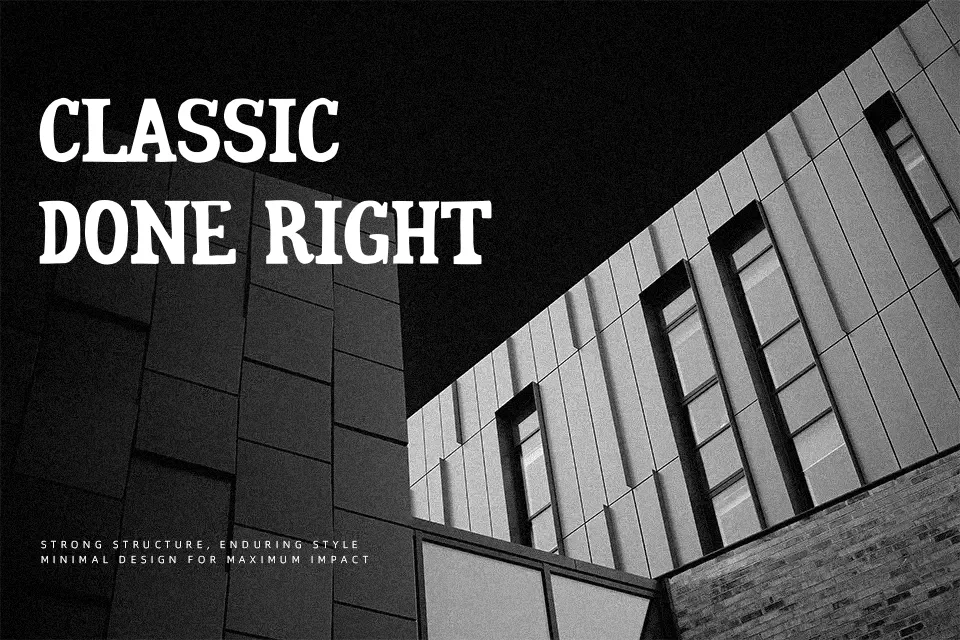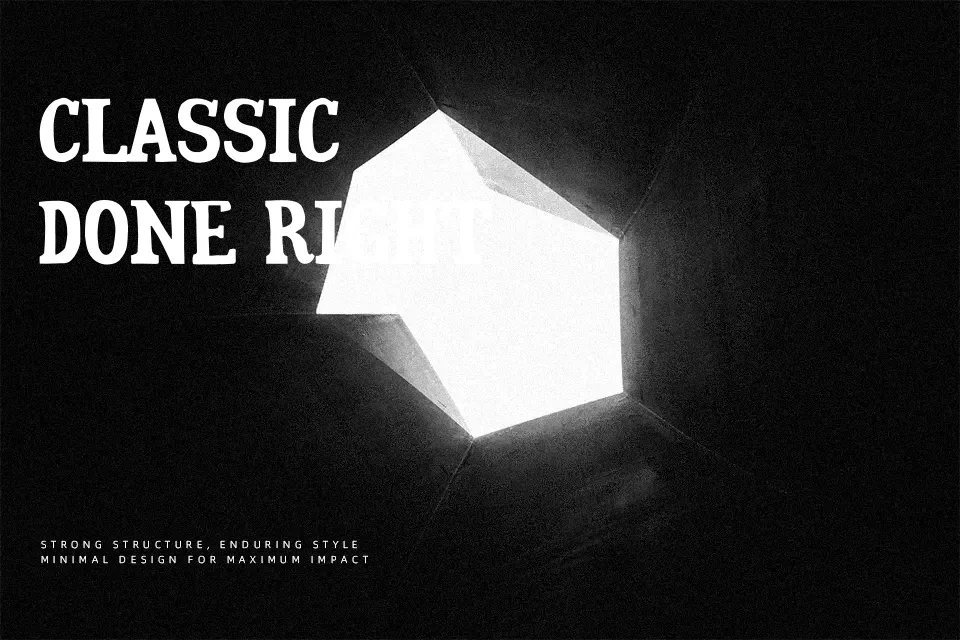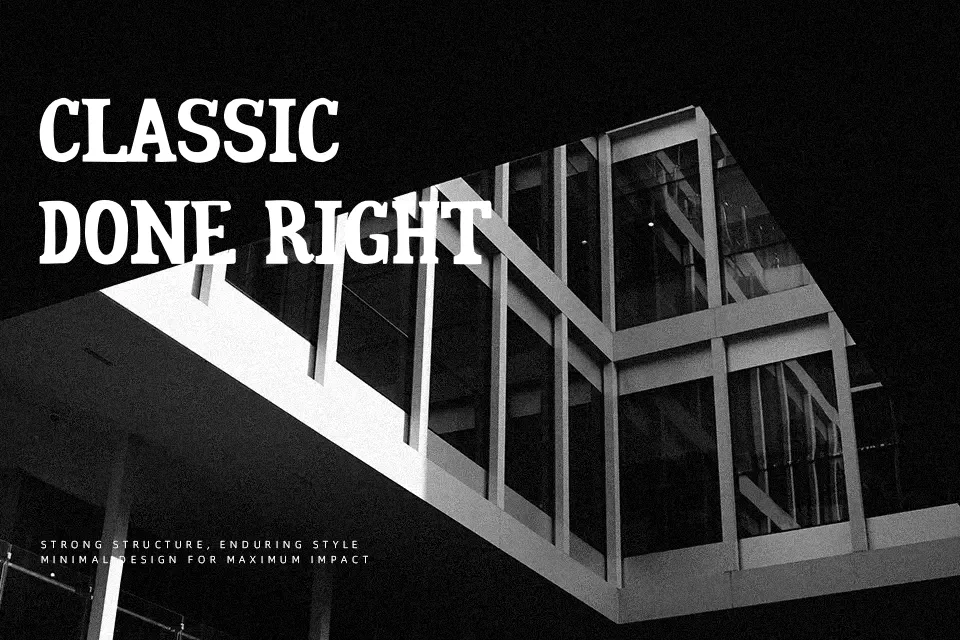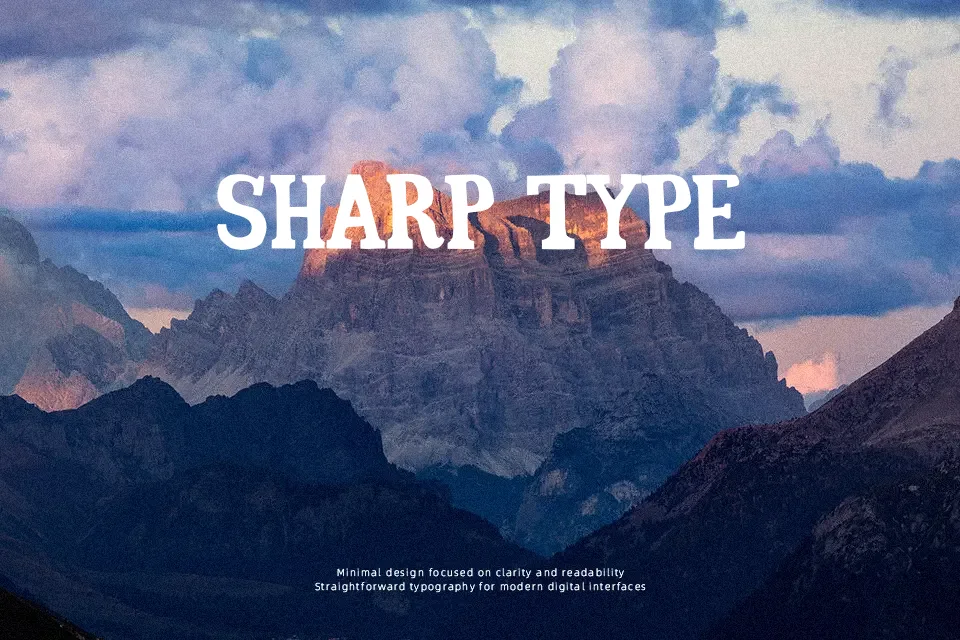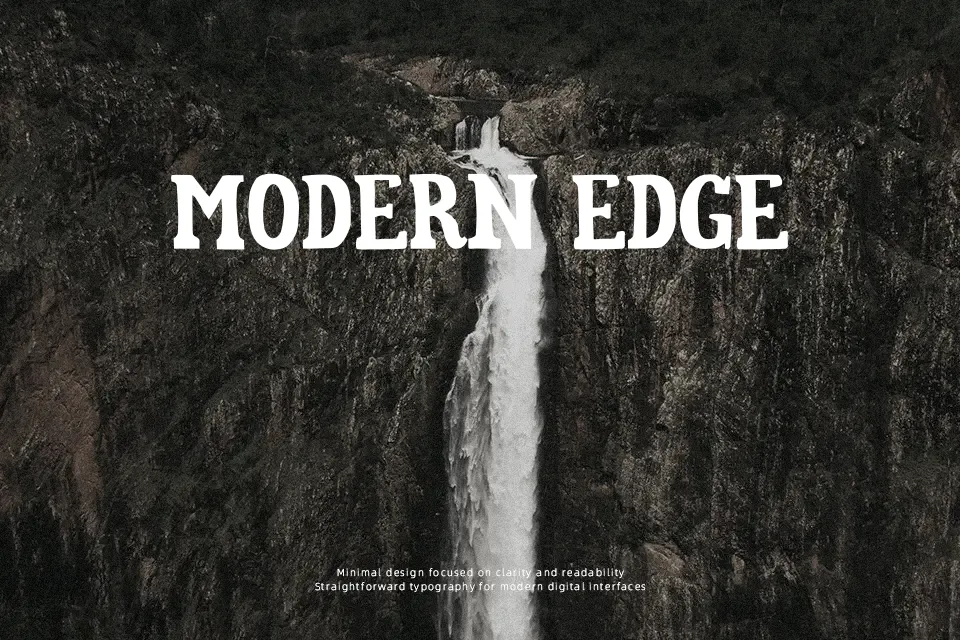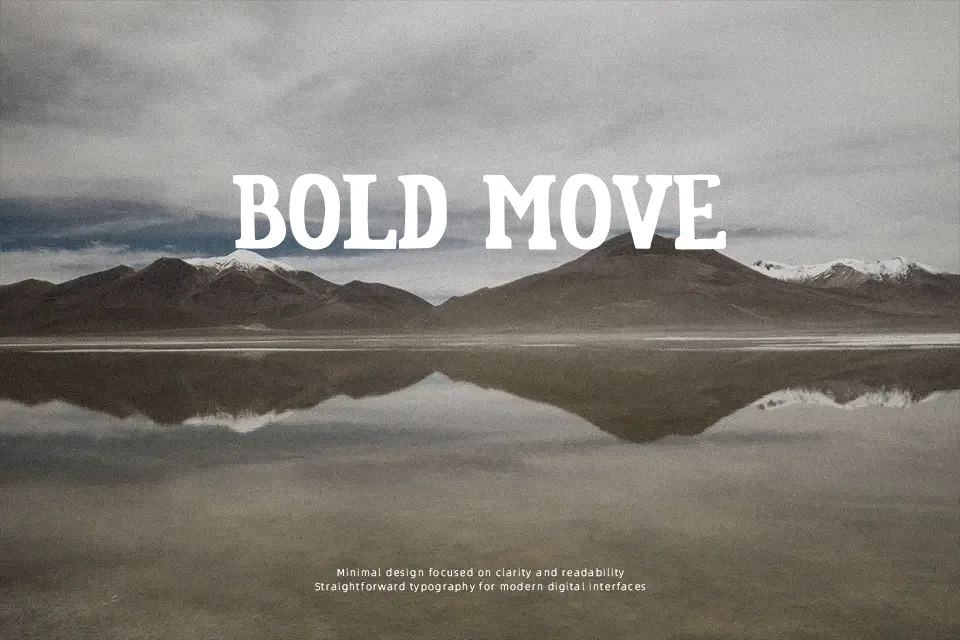
Pio Serif Font
Pio Serif Font works best as a large-scale display face, using heavy serif forms, sharp interior shapes, and compact proportions to create a forceful rhythm. The uppercase letters appear consistently built, while the numerals retain the same dense visual weight. Spacing is relatively close, helping short words hold together in posters and label designs. The typeface remains recognizable in large headlines, particularly where a dark, structured word shape is useful. Its decorative construction becomes less comfortable in small text or lengthy copy, so it is better treated as an accent face than a general reading typeface.
Best For: poster headlines,product packaging labels,album cover titles,logo concepts
Perfect for headline, logo, and music, with a bold and decorative style.